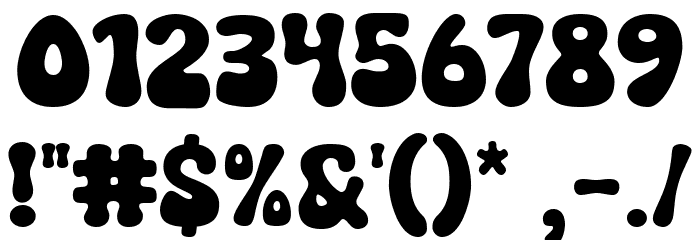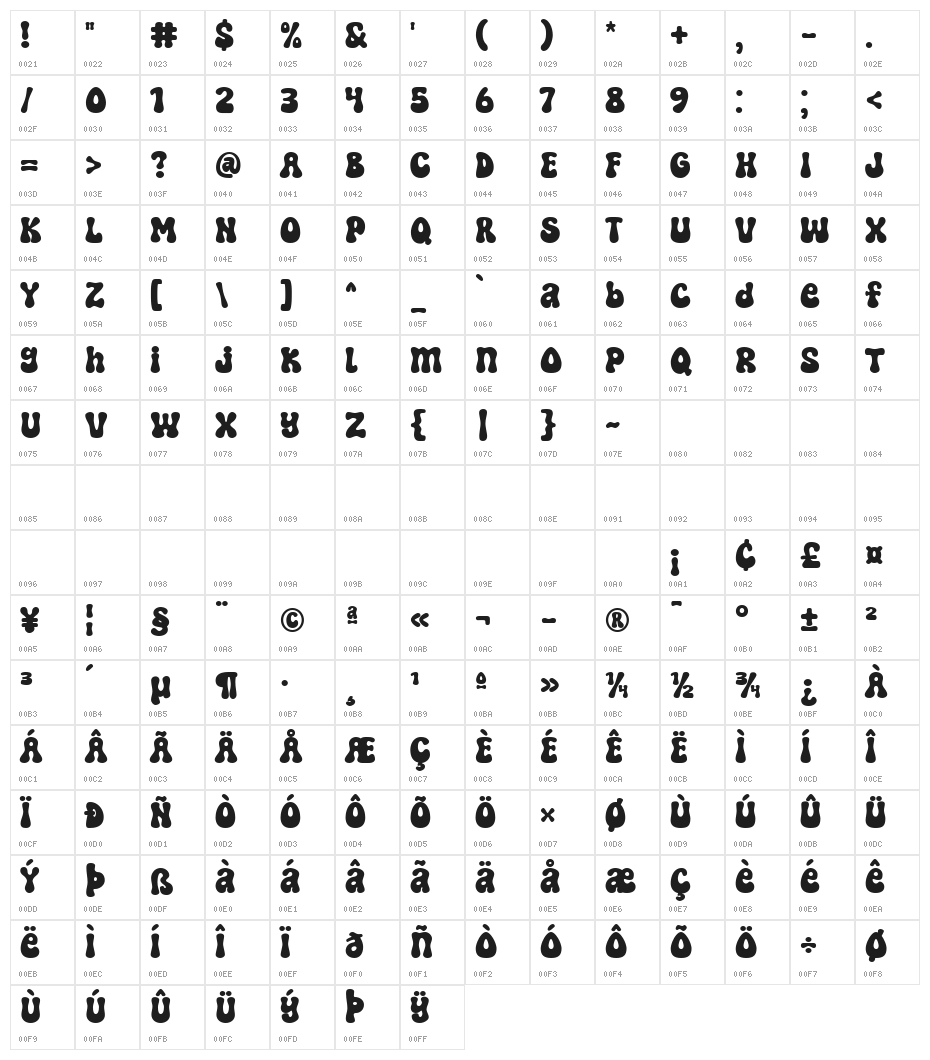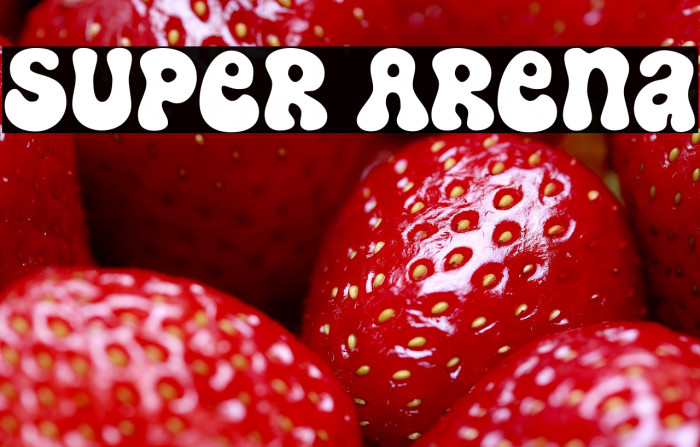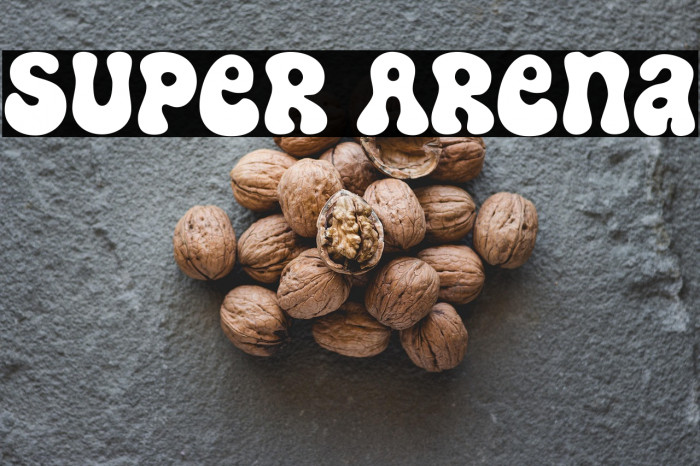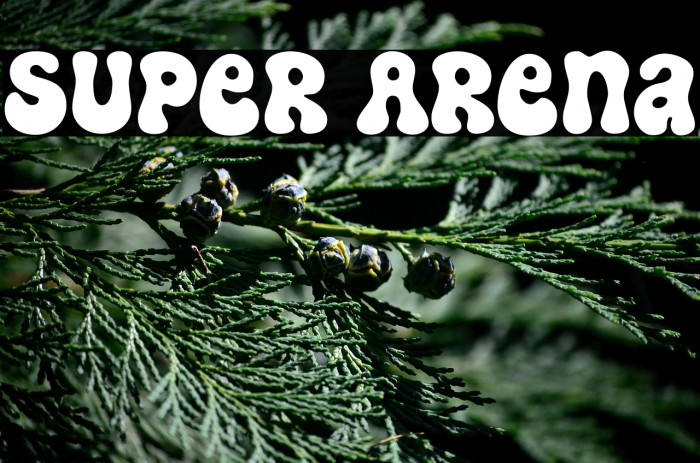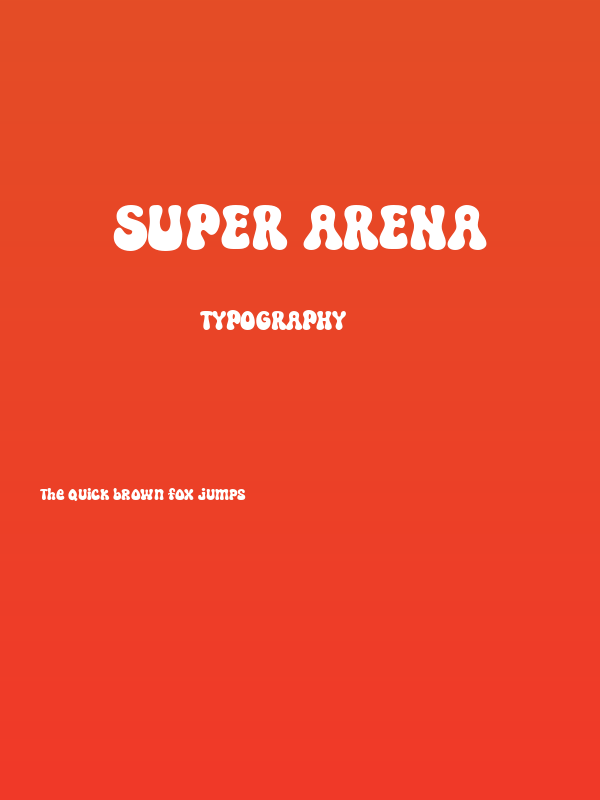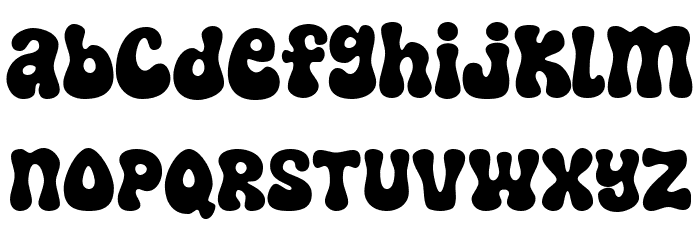
Super Arena Font
Super Arena Description
This playful and bold font features thick, rounded characters that exude a sense of fun and creativity. The letters are heavily weighted with a bubbly appearance, making them stand out with a unique personality. The font's design is consistent across both uppercase and lowercase letters, as well as numbers and special characters, maintaining a cohesive look. Its exaggerated curves and soft edges give it a friendly and approachable feel, perfect for projects that aim to capture attention and convey a lively atmosphere.
Overall StylePlayful
Proposed ProjectsIdeal for children's books, playful branding, party invitations, and eye-catching posters.